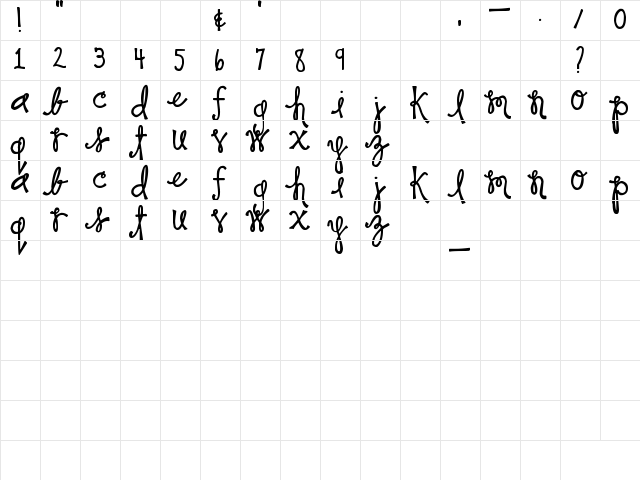
Super Snorty Laughter Regular
Design Context for Super Snorty Laughter Typeface
Super Snorty Laughter is a composed and adaptable typeface that performs quietly and consistently across a wide range of design contexts.
Pro Tip: Pair Super Snorty Laughter with a font of contrasting weight or personality to build a more expressive typographic hierarchy.